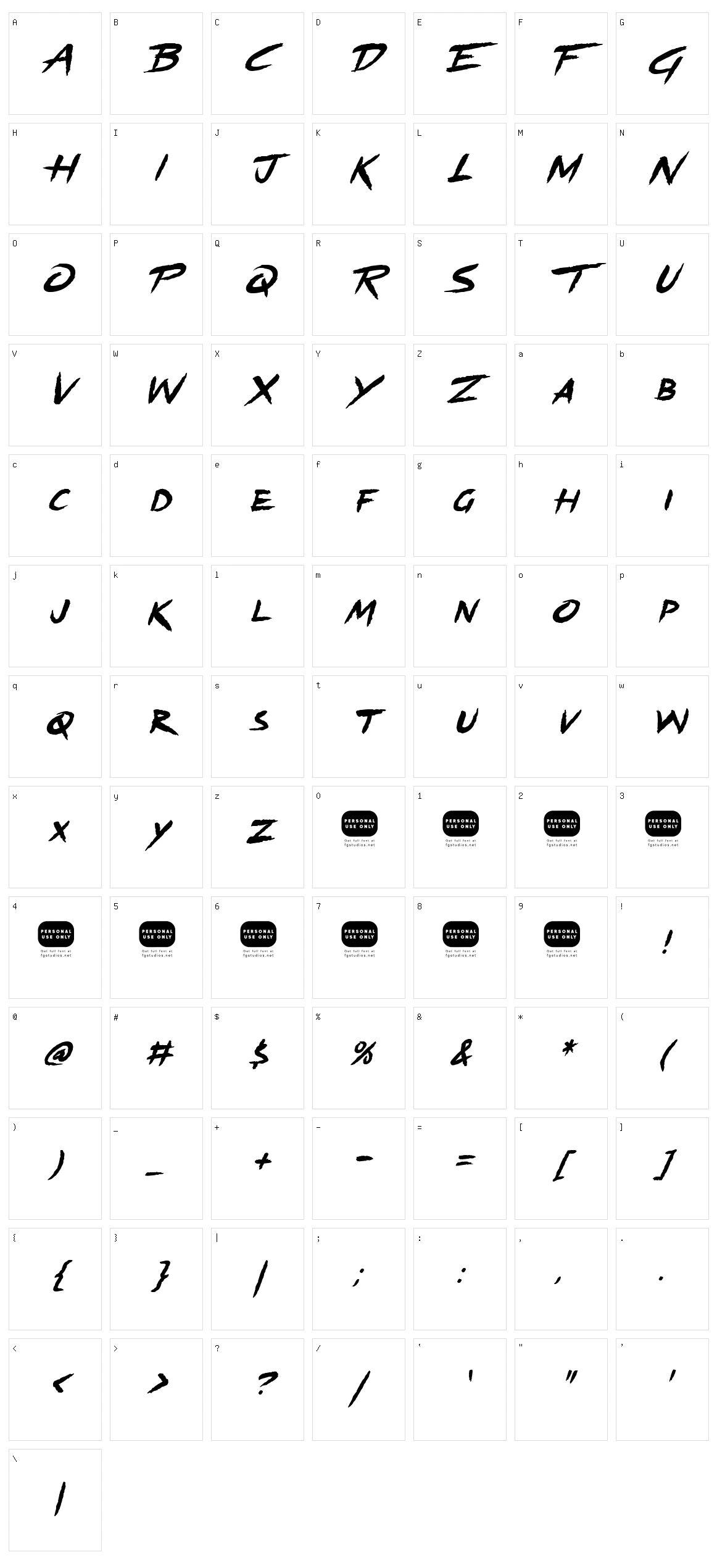
The free font Binary is carefully designed by FG Studios, showcasing a thoughtful balance of creativity and usability and falls under the Script font style. When you download the ZIP file, it contains only 60.99 KB of font files, making it lightweight and quick to download. Please review the license details below to understand permitted usage and distribution rights. If license information is not available, we recommend using this font for personal projects only or contacting the author directly for commercial usage permissions.